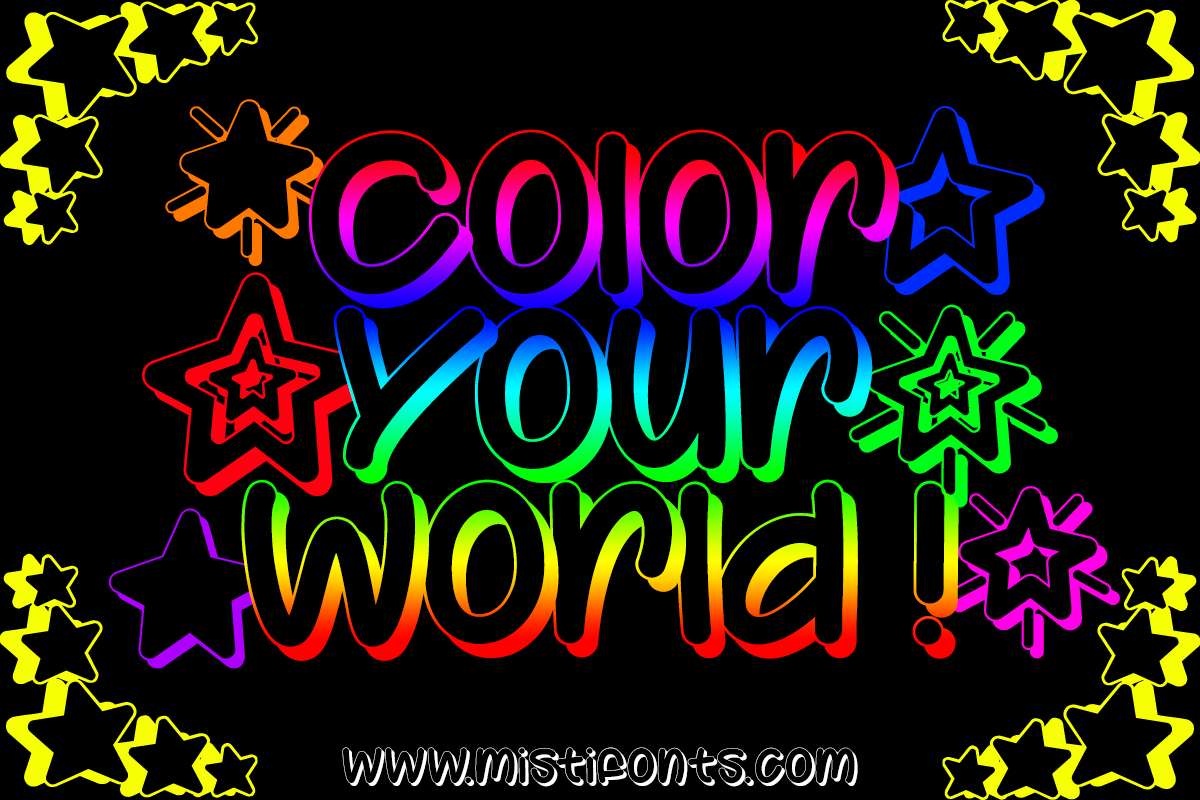
Color Your World is a 3D outline font that is great for a variety of projects!
SPECIAL SYMBOLS
Type * (asterisk) for the open star
Type | (vertical bar) for the solid star
Type (backslash) for the fancy star
Type _ (underscore) for the shining open star
Type ^ (circumflex) for the shining solid star
Type ~ (tilde) for the shining fancy star
Type {} (curly braces) for the star clusters